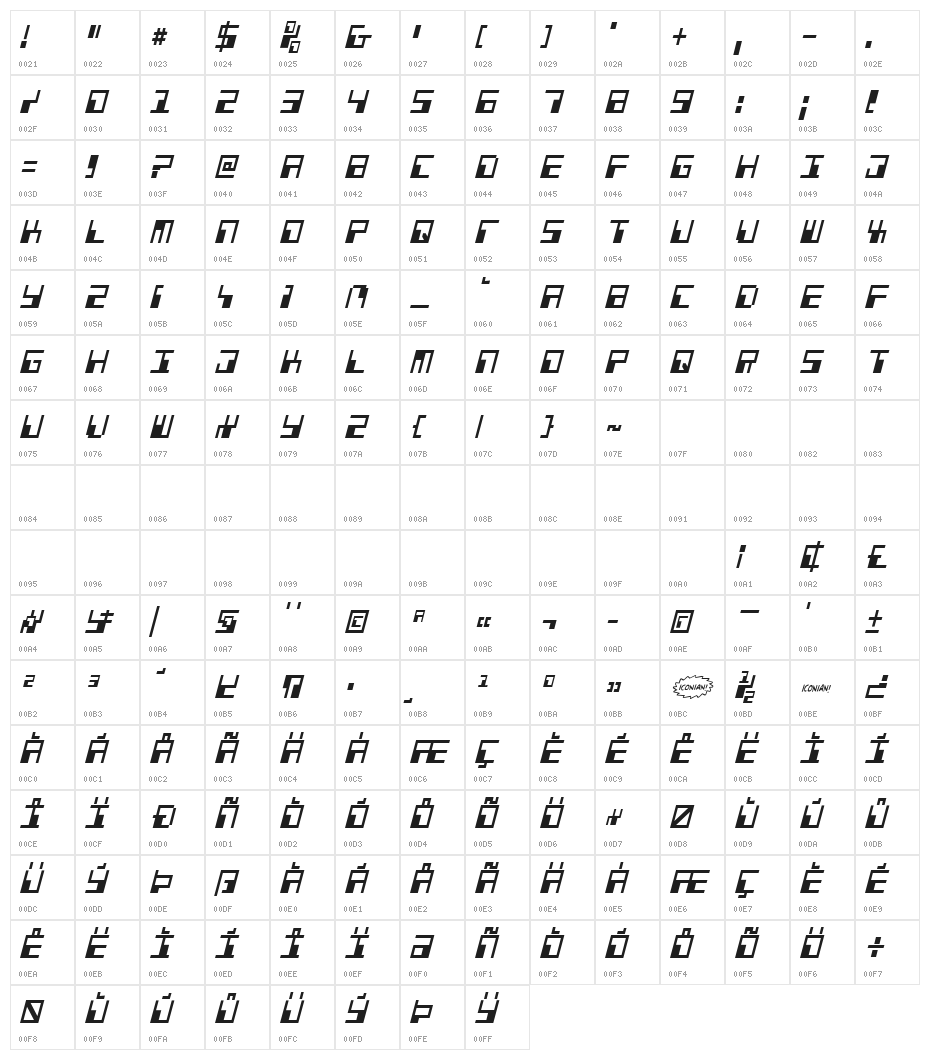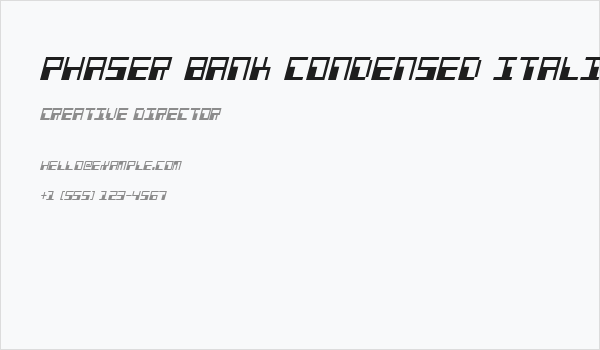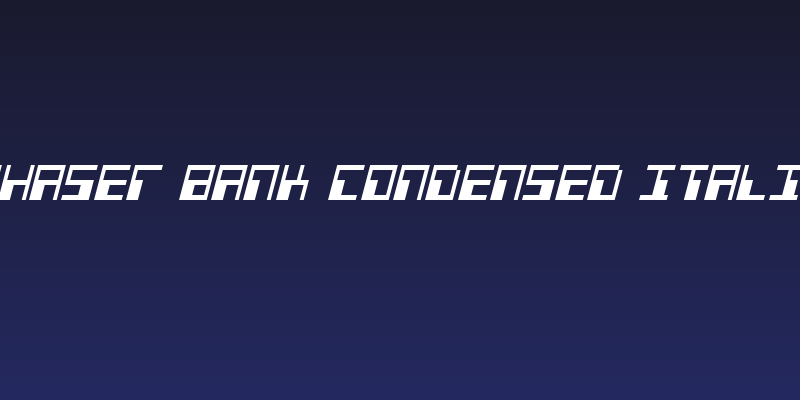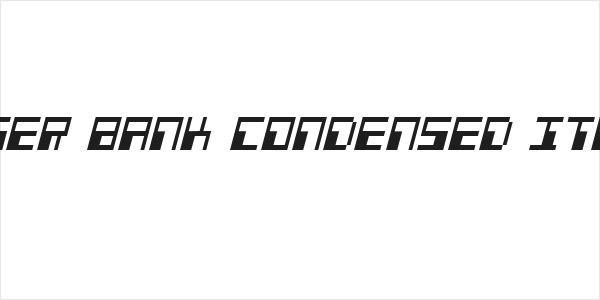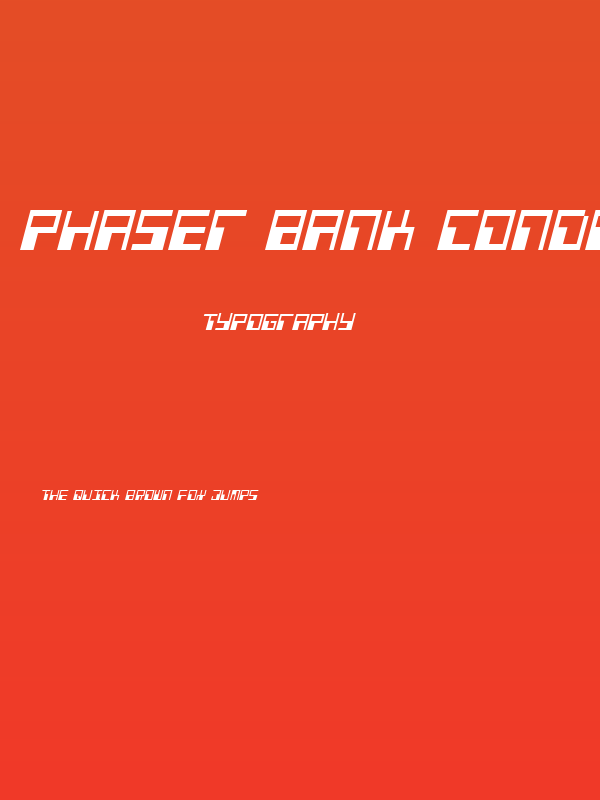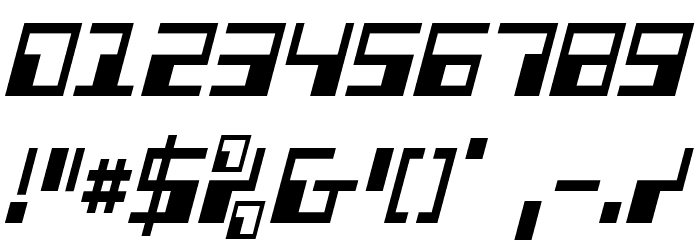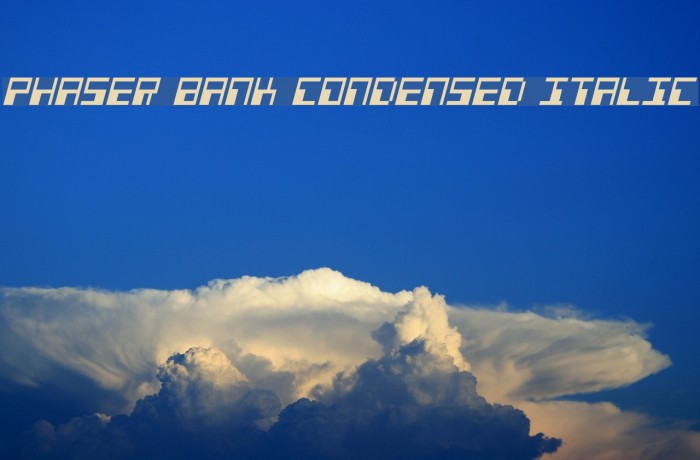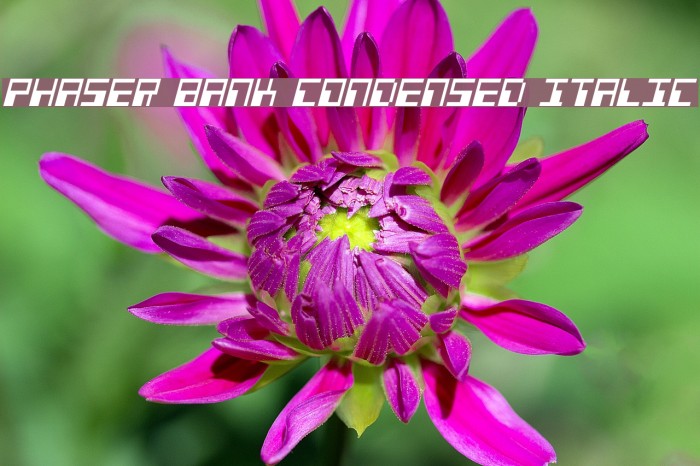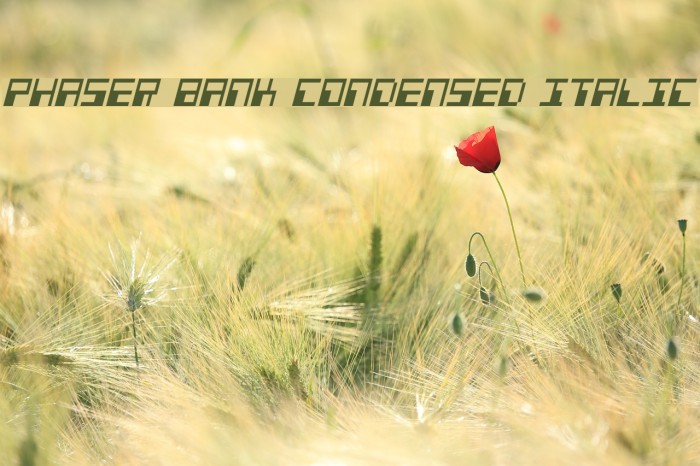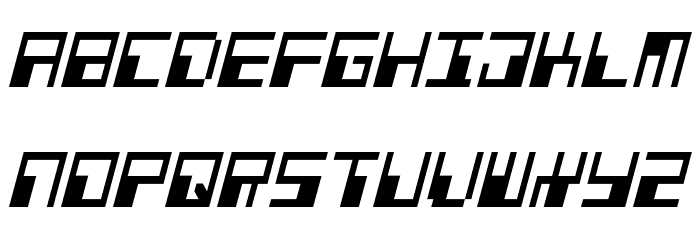
Phaser Bank Condensed Italic Font
Phaser Bank Condensed Italic Description
This font features a futuristic and angular design, characterized by its sharp edges and geometric shapes. The letters are slanted, giving it an italicized appearance, and the condensed form makes it compact and efficient for space-saving designs. The bold strokes and high contrast between thick and thin lines enhance its dynamic and modern feel. This style is particularly suitable for projects that require a tech-savvy or avant-garde aesthetic, such as video game titles, sci-fi movie posters, or technology brand logos.
| Proposed Projects | Ideal for sci-fi themes, tech branding, video game titles, and modern posters. |